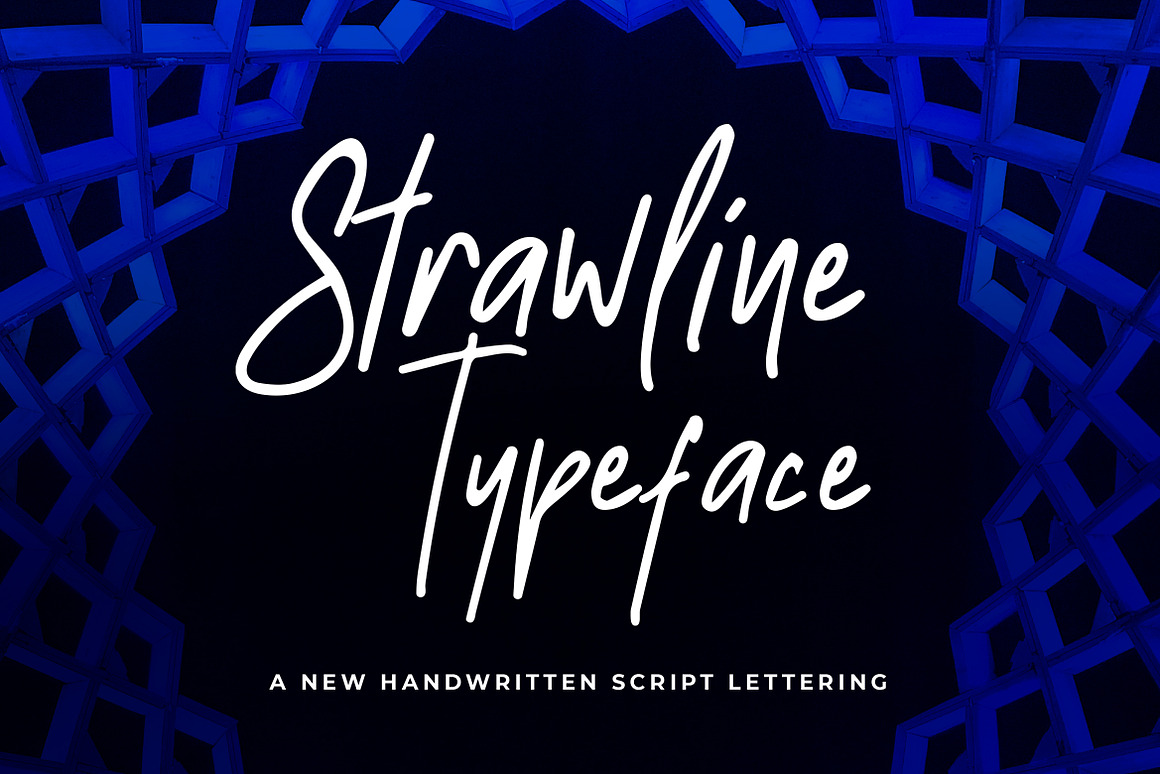
Strawline Typeface
Strawline Typeface is perfect for organic food branding, natural product packaging, eco-friendly campaigns, sustainable fashion labels, artisan market signage, healthy lifestyle blogs, farm-to-table restaurants, botanical illustrations, wellness retreat materials, green technology companies, environmental organizations, and wholesome brand communications.
What makes Strawline Typeface exciting is its natural authenticity that captures the essence of organic simplicity and sustainable living through clean, earth-inspired letterforms that evoke freshness and environmental consciousness. This refreshing typeface embodies the beauty of natural processes and mindful consumption, combining gentle curves with honest simplicity that resonates with audiences seeking healthy, sustainable lifestyle choices and environmentally responsible products. The font's organic character and pure aesthetic create immediate trust and connection while maintaining the clarity essential for modern eco-conscious communications. Its wholesome personality makes it perfect for brands that want to communicate sustainability, health, and the transformative power of natural living and environmental stewardship.
The Strawline Typeface family includes light, regular, and medium weights, featuring organic alternates, natural ligatures, and eco-inspired design elements. The character set incorporates sustainable symbols, earth-friendly numerals, and organic punctuation marks that enhance the font's natural character and provide designers with comprehensive eco-conscious typography solutions for green brand expressions.
Whether you're developing sustainable brand identities, creating organic marketing materials, or designing environmental communications, Strawline Typeface Free Download provides the natural authenticity your eco-conscious projects require. This premium typeface excels in applications where environmental responsibility and healthy living are crucial for brand positioning and consumer trust in sustainable markets. The font's organic qualities work beautifully across natural packaging, eco-friendly signage, and digital wellness platforms, making it an essential tool for designers serving health-conscious and environmentally aware audiences. Sustainable companies and wellness brands choose this font for its ability to communicate natural purity while maintaining professional credibility and market appeal. The comprehensive character support includes eco-friendly symbols and sustainability-focused glyphs, expanding its versatility for global green applications and multilingual environmental communications. Professional designers appreciate its perfect balance of natural inspiration and commercial functionality, ensuring projects remain both environmentally authentic and practically effective. When you incorporate this exceptional typeface into your sustainable communications, you're selecting a typography solution that celebrates natural living and environmental responsibility, ensuring your brand connects with conscious consumers while maintaining the organic credibility essential for success in competitive green markets and sustainable industries that promote healthy living, environmental protection, and mindful consumption in today's environmentally conscious world.